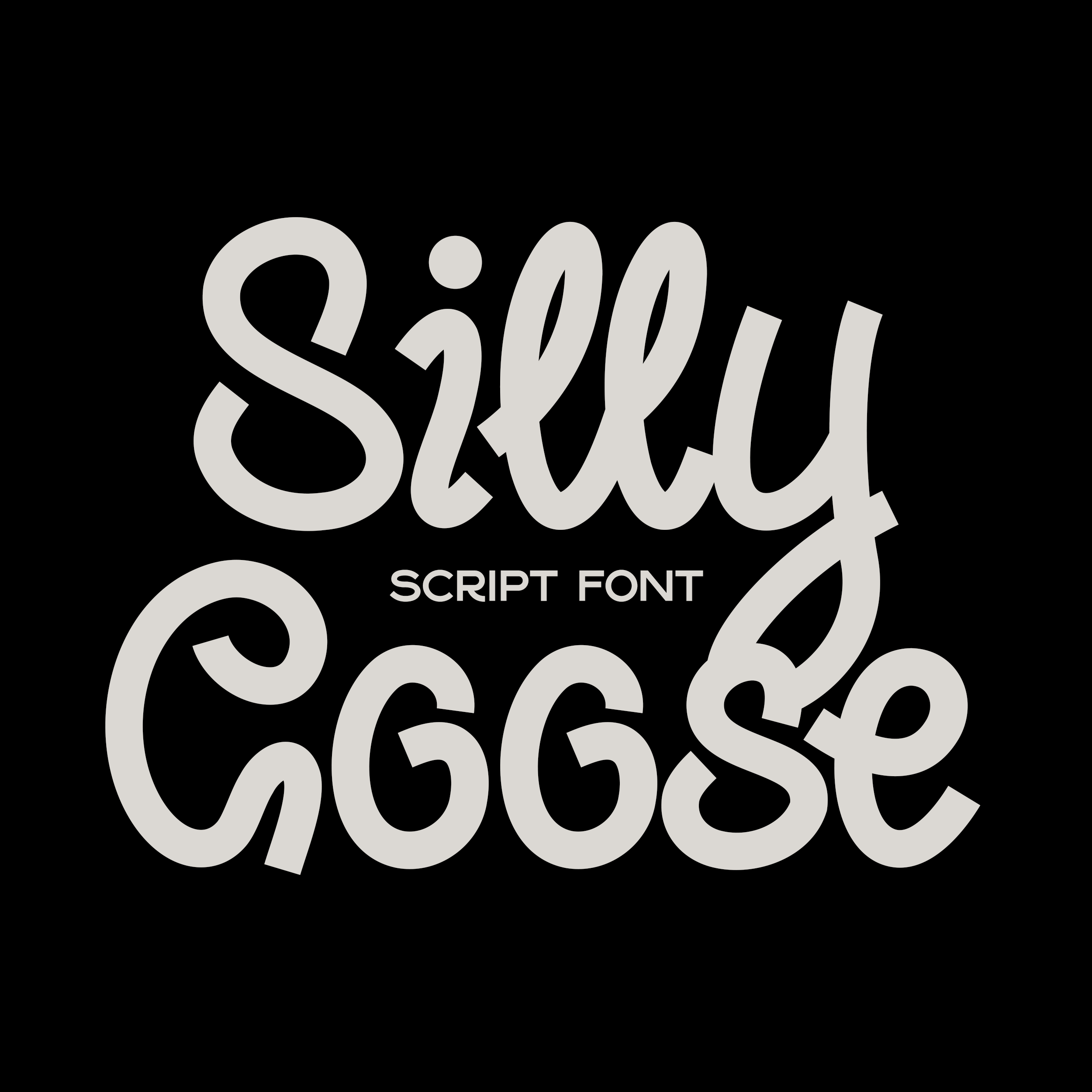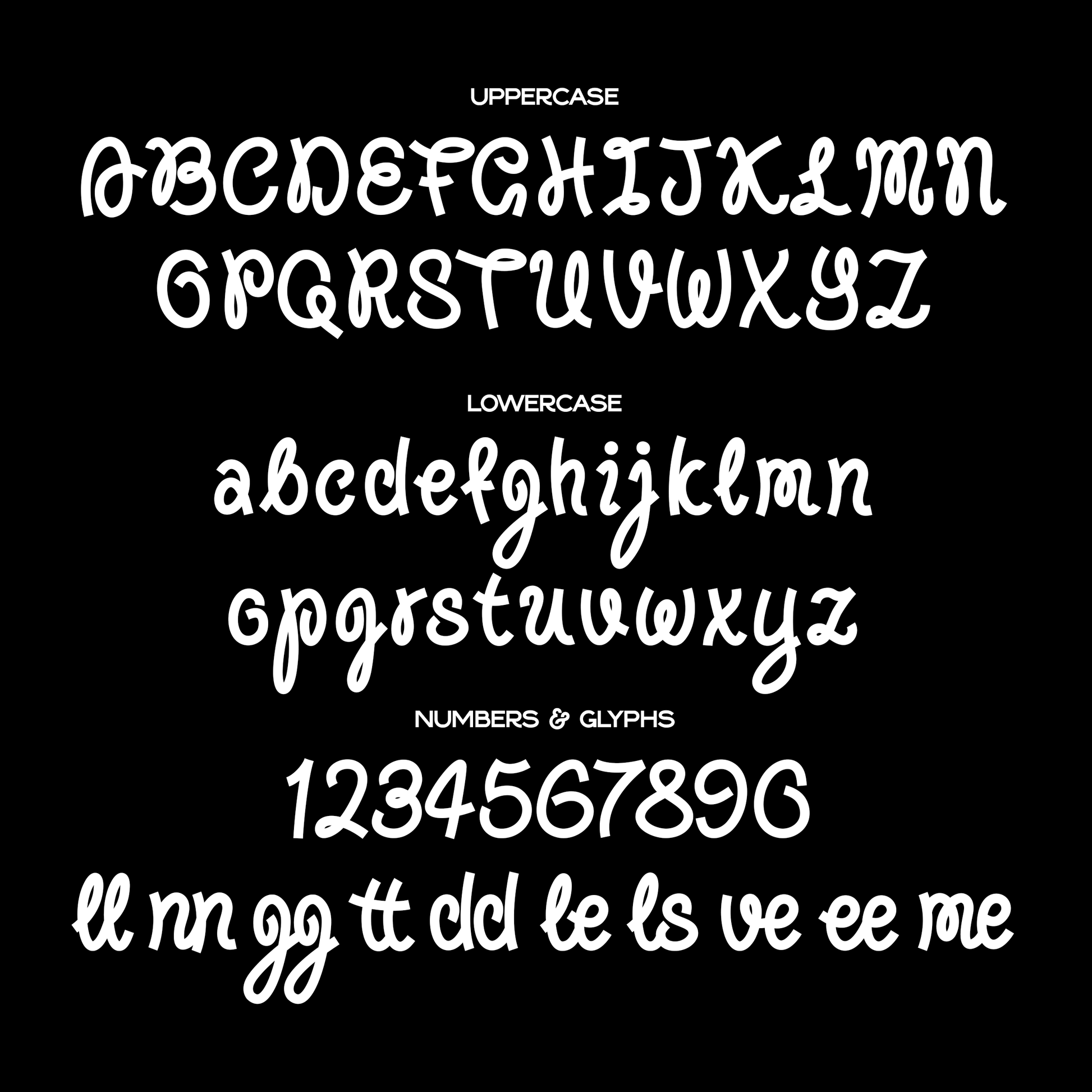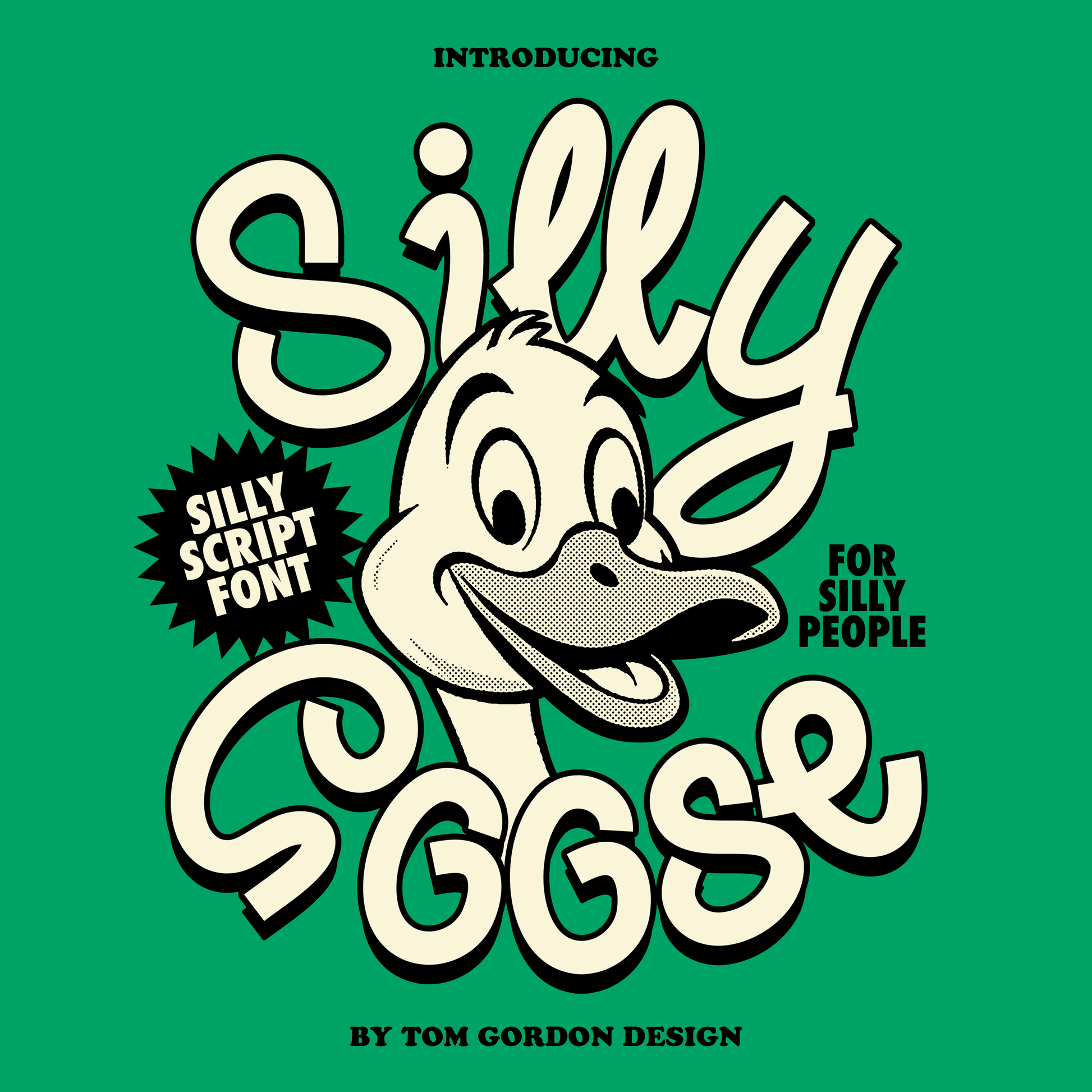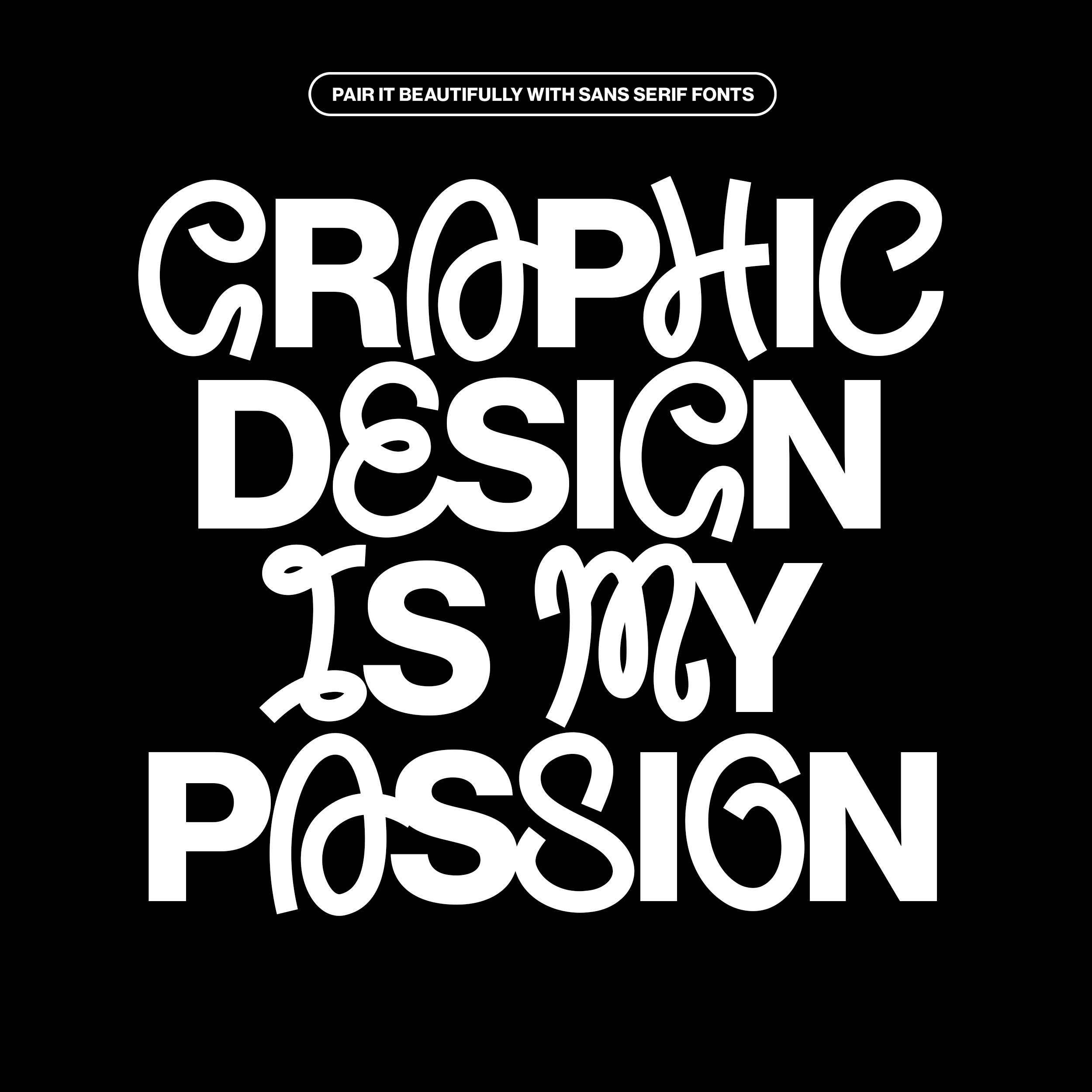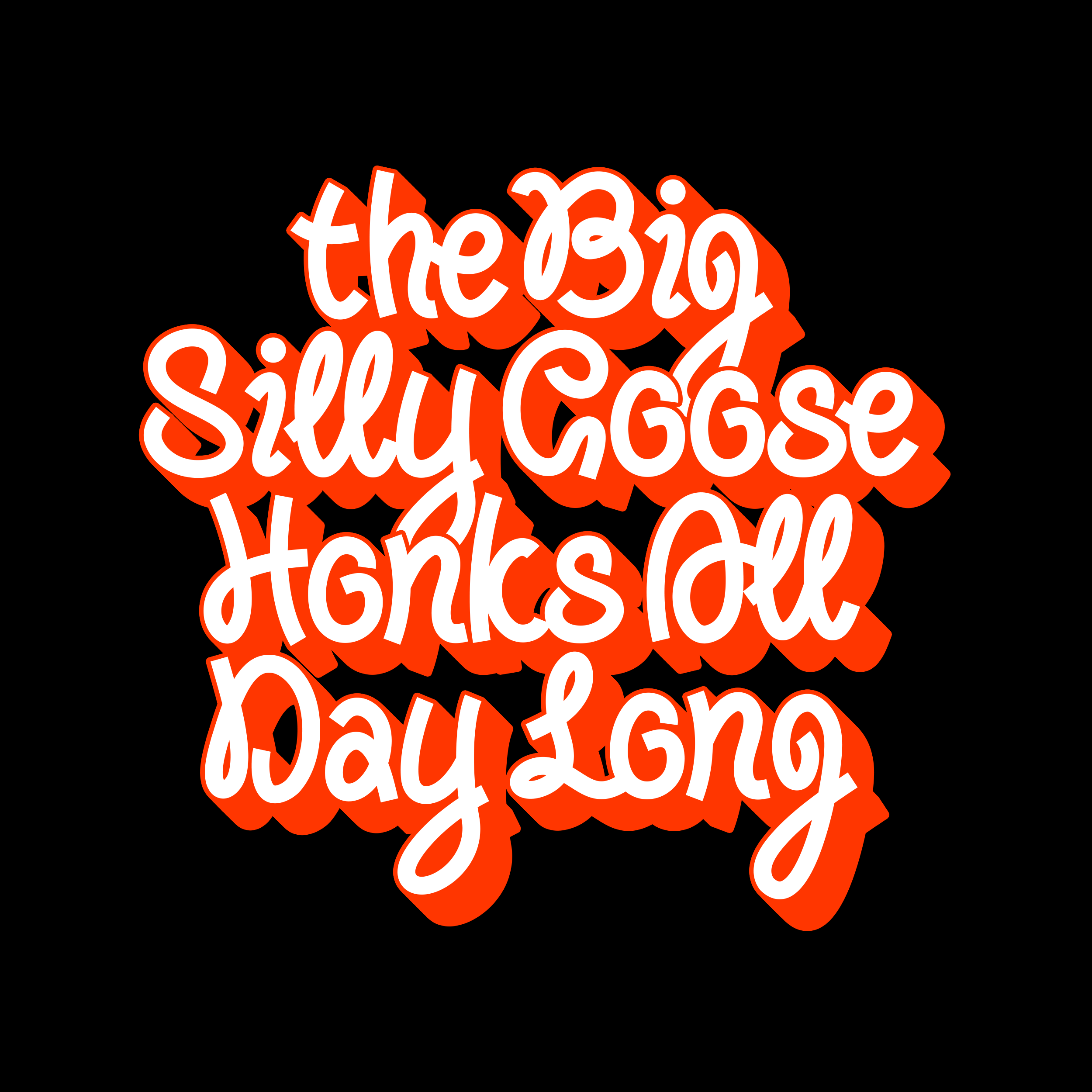
Introducing "Silly Goose": A ridiculously silly script font.
A wonderfully fun monoline script font with a bold feel to it. Perfect for bringing whimsy to your illustrations and designs. Complete with full uppercase and lowercase alphabet, numbers, essential symbols and a host of useful ligatures to add even more character to your lettering.
Infuse some silliness into:
Logos
Merchandise
Posters
Packaging And much more!
Full alphabet
Numerals and essential punctuation